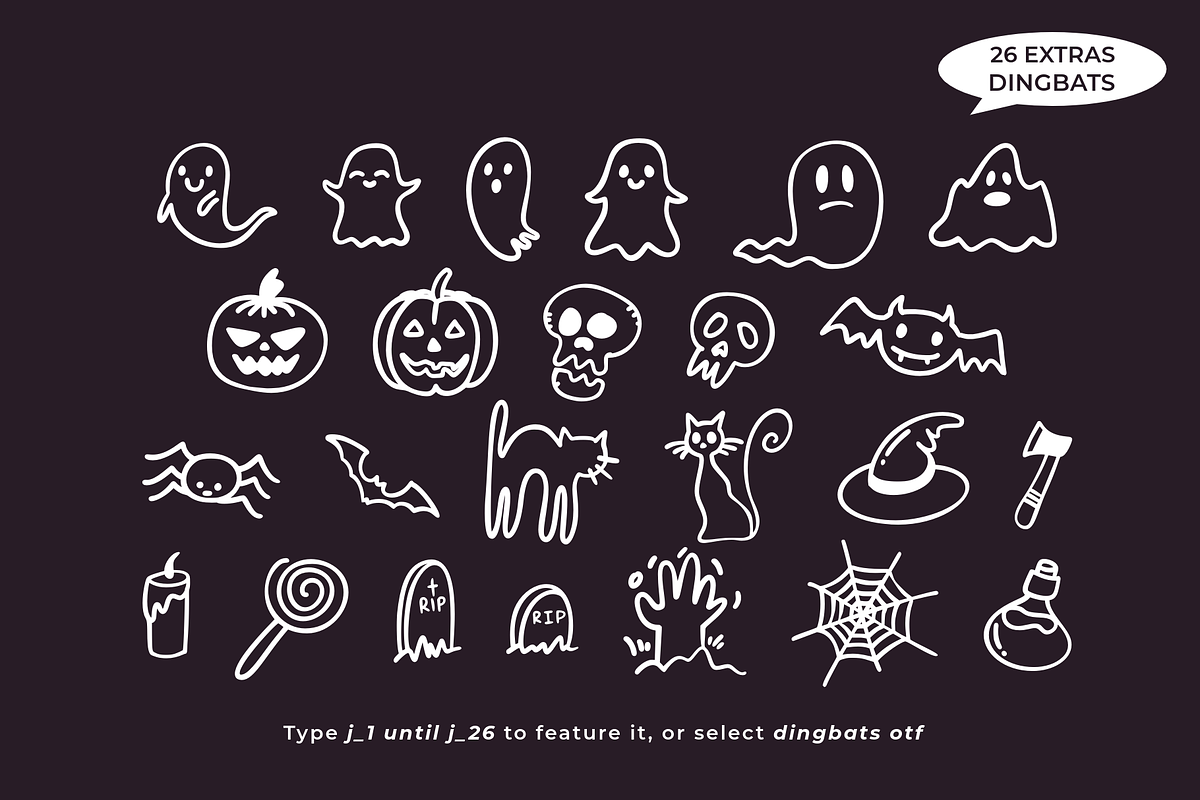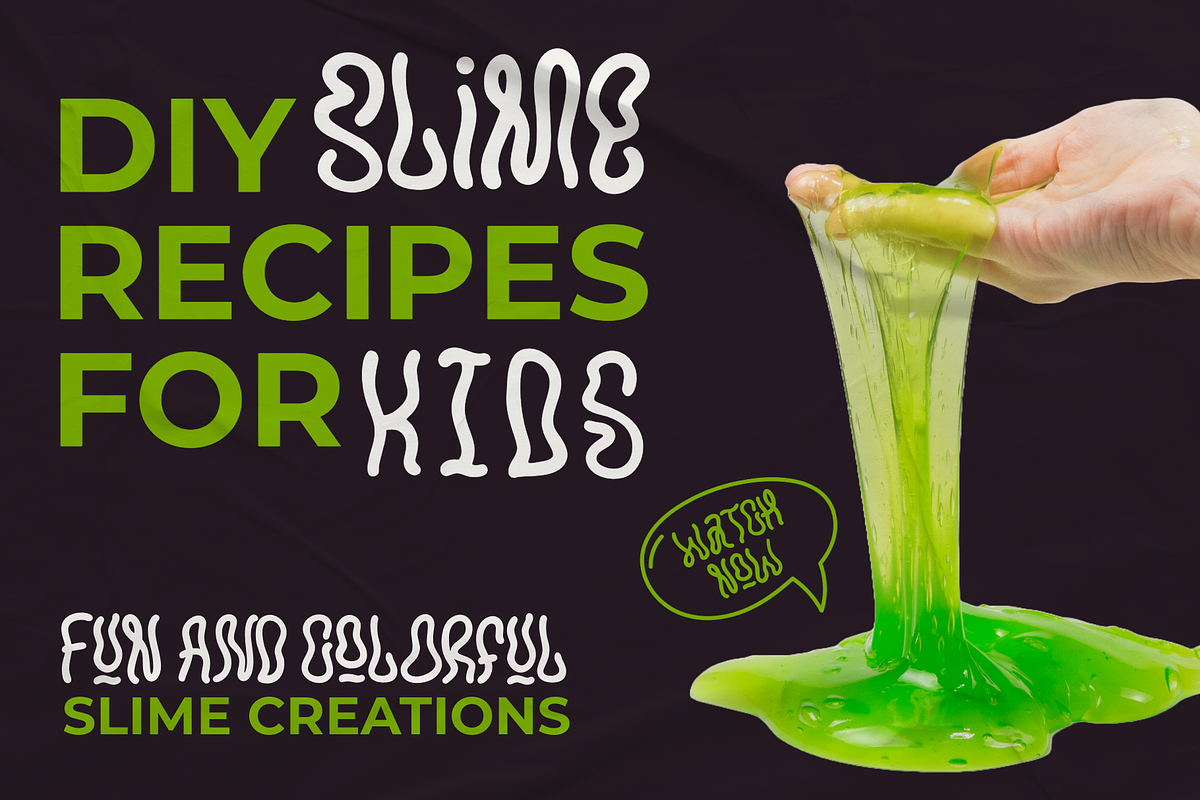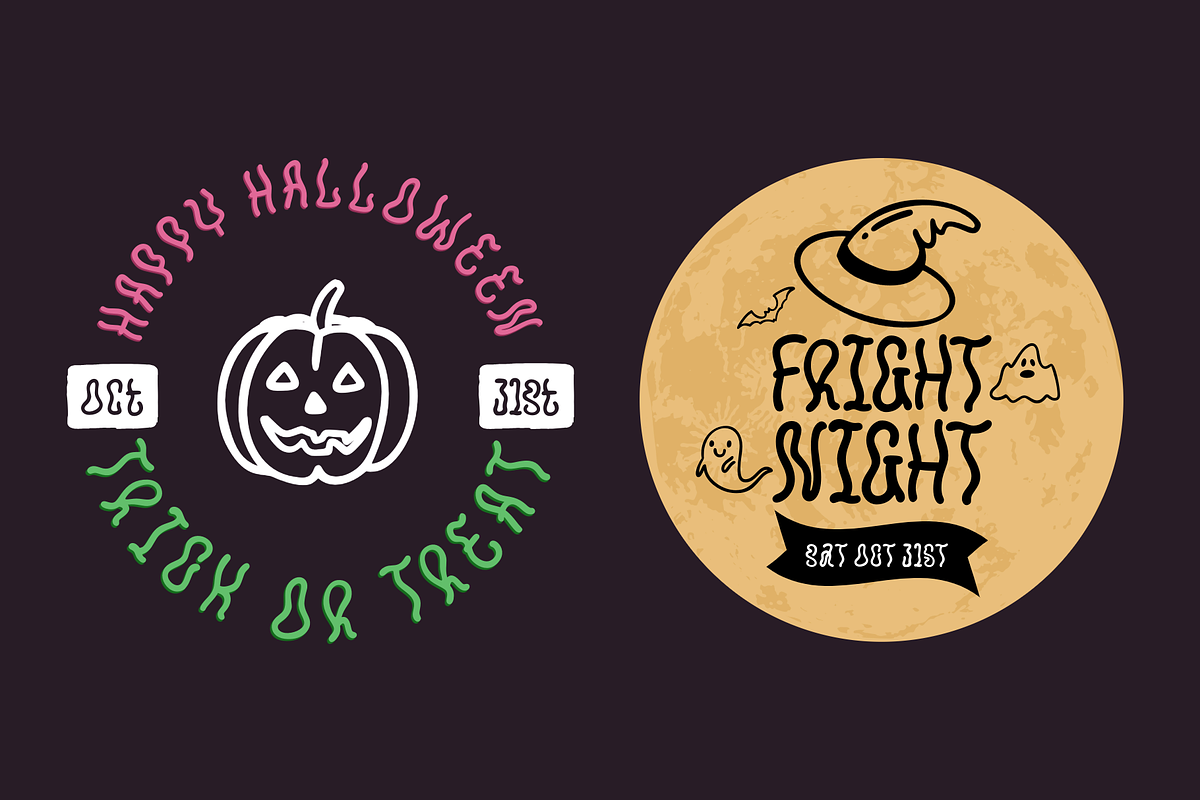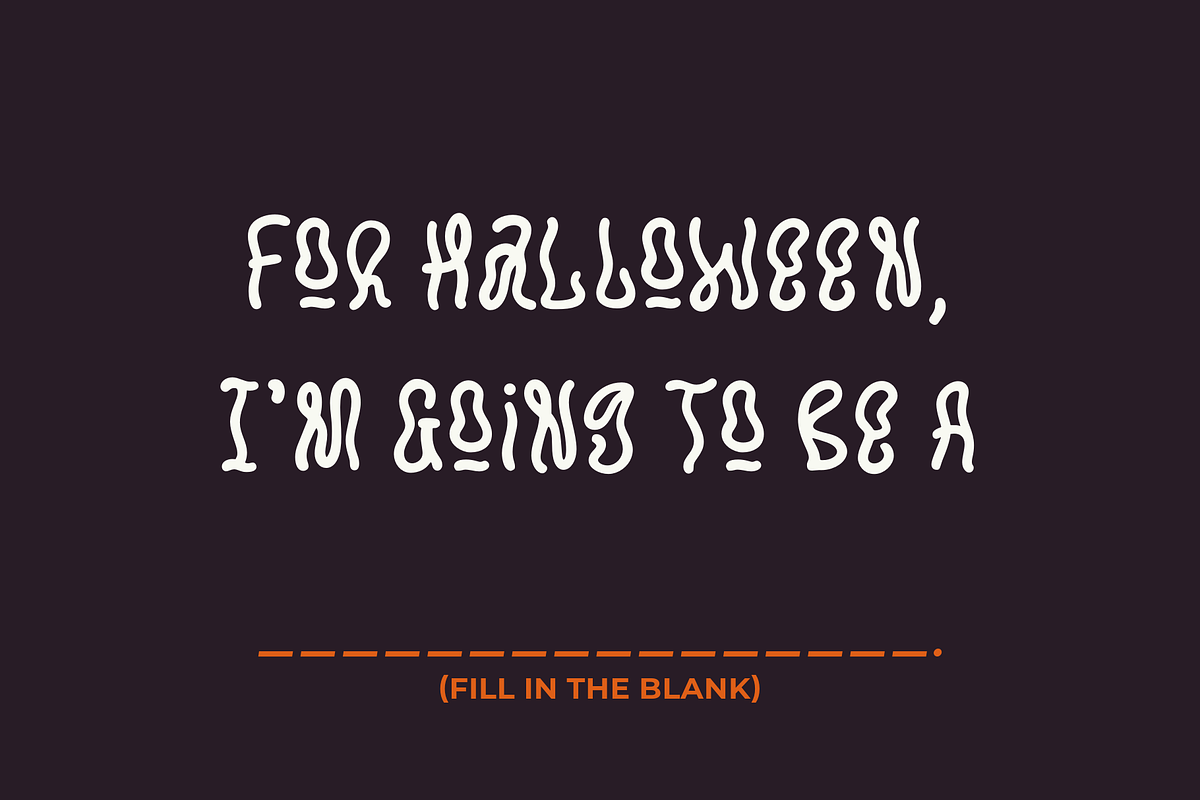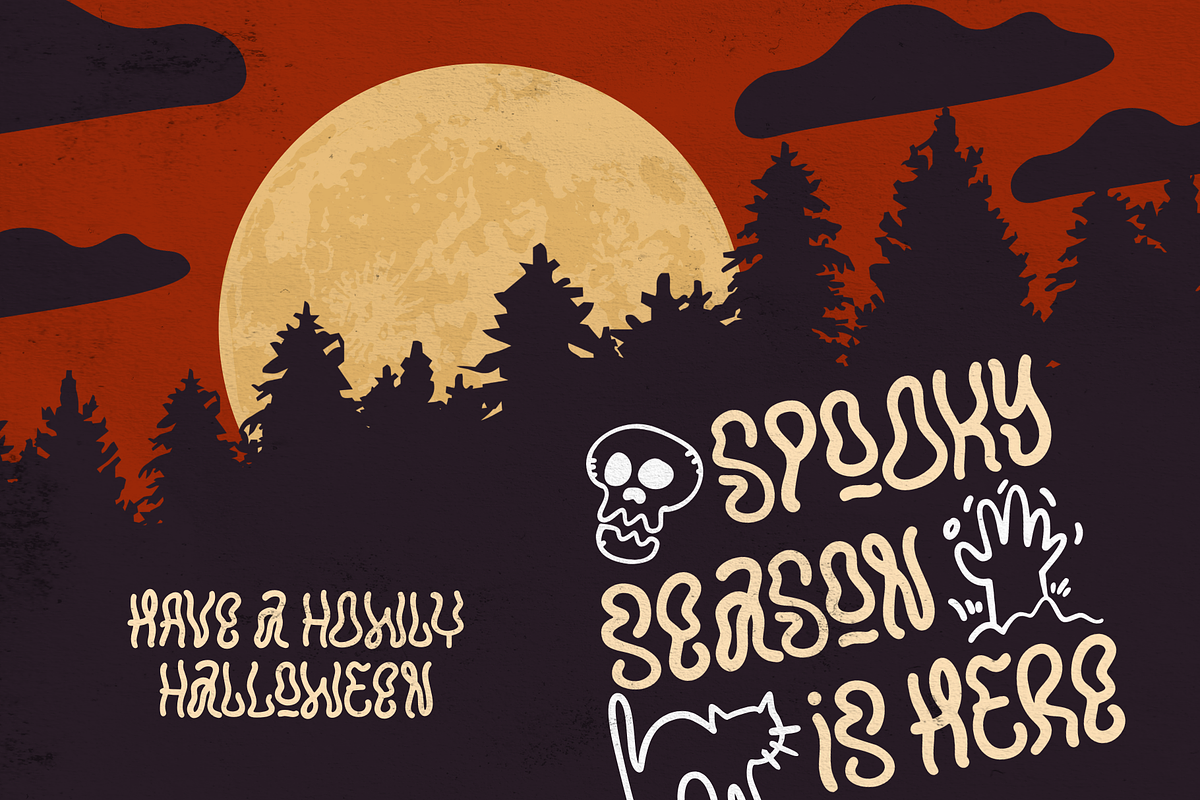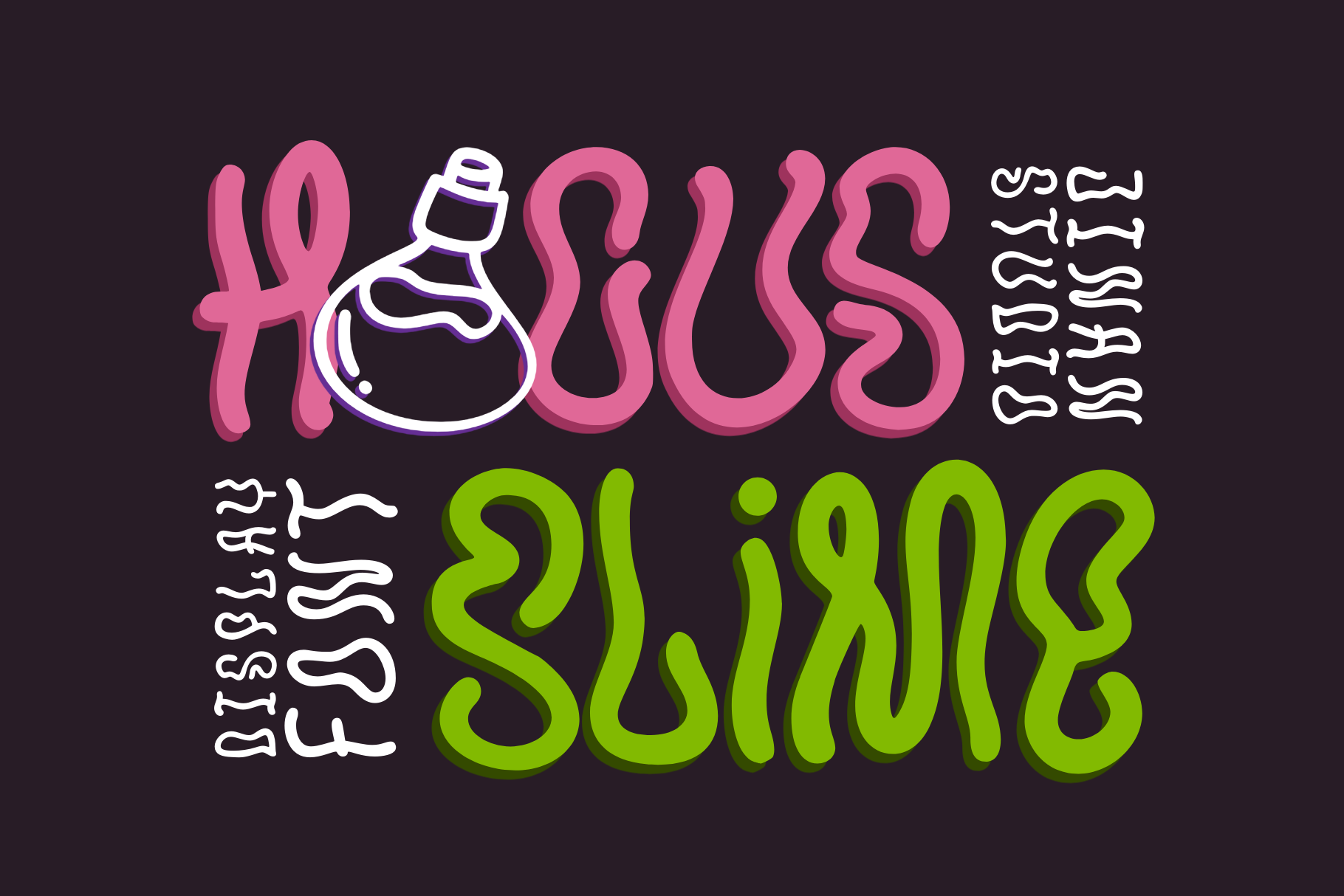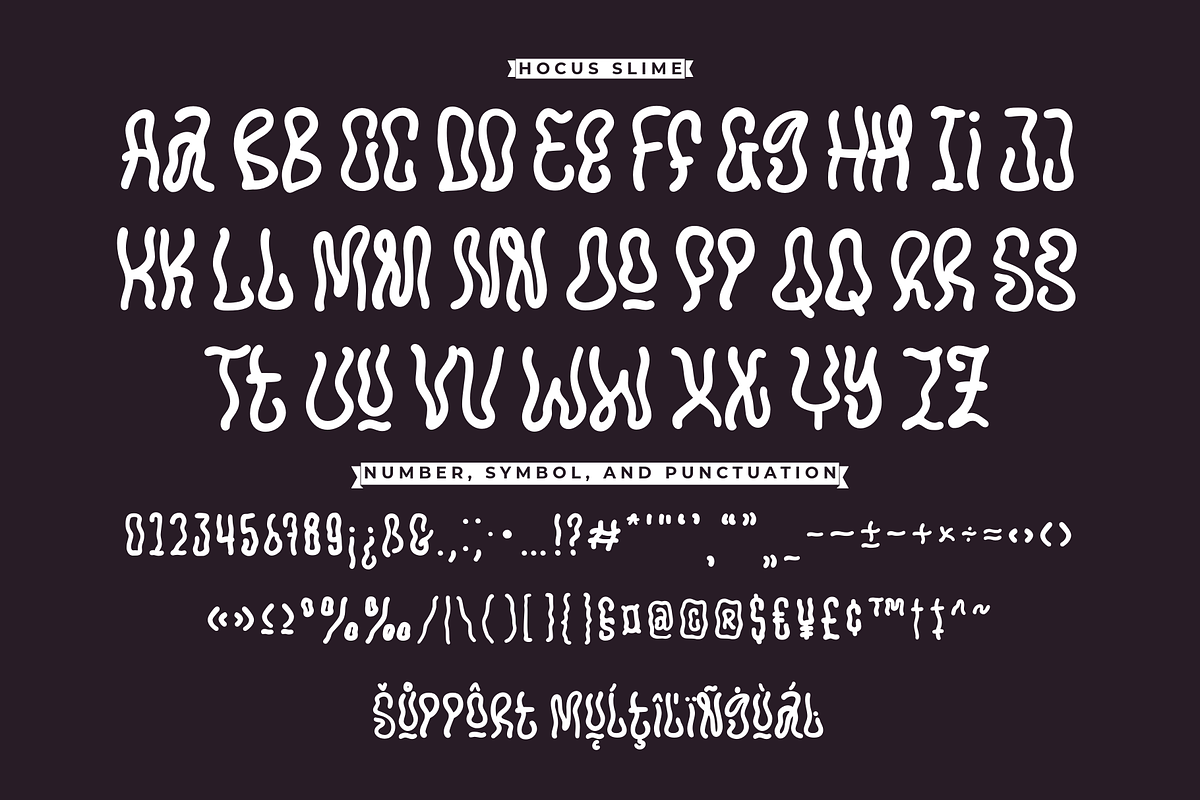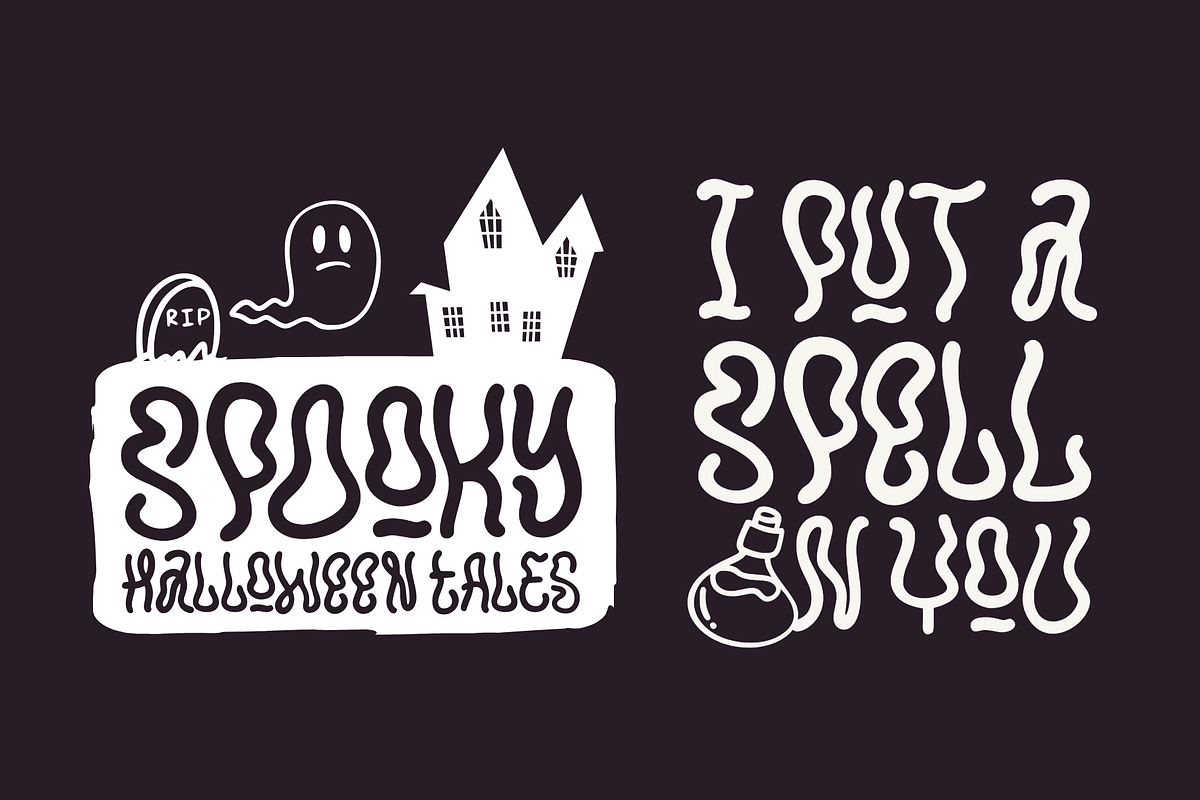
Hocus Slime - Halloween Display Font
Hocus Slime is a dynamic and expressive display font designed for Halloween and other spooky-themed projects. Its fluid, wavy letterforms resemble dripping slime, adding a playful yet eerie touch to your designs. The bold and exaggerated shapes ensure that the font commands attention, making it ideal for headlines, posters, and invitations.
This font captures a whimsical, Halloween-inspired aesthetic, balancing a sense of fun with just the right amount of creepiness. Whether you're creating party invitations, promotional materials, or themed graphics, Hocus Slime brings a unique and engaging visual element to your work.
- A set of uppercase and lowercase glyphs
- Number, symbol, and punctuation
- Extras Dingbats